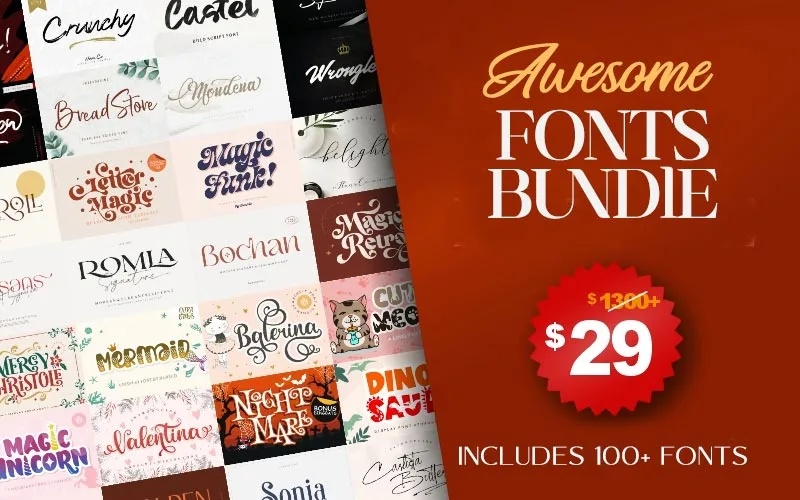
Make a striking first impression with the right type. The 100+ Awesome Fonts Bundle brings together playful, elegant, and classy typefaces—many with bonus ornaments and swashes—so you can create polished, memorable designs for any project.
What you get
• 100+ distinct fonts (full list below).
• Uppercase, lowercase and numerals included for every font.
• Bonus ornaments and swashes included on several fonts.
Fonts included in this bundle
• Letter Magic
• Bochan
• Magic Retro
• Berlin Collection
• Sonia
• Carlista Buttery
• Sunroll
• Magic Funk
• Notted
• Magic Sparkle
• Nesans
• Romla
• Golden Standbury
• Belgia
• Belights
• Amelia Ink
• Amorista
• Astopher
• Austin Capittal
• Balistone
• Ballomont
• Bastian Sidney
• Bellinda
• Blaster
• Bread Store
• Buchery
• Castel
• Crunchy
• Eastblue
• Glastia Monoline
• Gopetter
• Halima Sofira
• Holingston
• Hot Sauce
• Mondena
• Off Side
• Platinum Signature
• QueenSea
• Restoe Bumi
• Risolla Calisto
• Santoriu
• Rotenfold
• Stabillo
• Skid Rock
• The Englands
• The Spectre
• Wild Wolf
• Wrongler
• Tahu Bullats
• Abigile
• Angelove
• Asterik
• August
• Baby Bunny
• Baking Pastry
• Balerina
• Beyond Stars
• Botania
• Craft Lovers
• Cute Meow
• Dinosaur
• Dog Style
• Feeling Blessed
• Femina
• Hello Cinta
• Hi Christopher
• Hi Panda
• Holly Days
• Just Swirls
• Kayla Story
• Kora Kora
• La Fiesta
• Labajo
• Lets Espresso
• Little Baby
• Little Farmhouse
• Love Sparks
• Lover
• Magdelin
• Magic Love
• Magic Unicorn
• Mercy Christole
• Merica
• Merisa
• Meristmas
• Mermaid
• Misteri
• Paw Wow
• Night Mare
• Rose Spring
• Roseytha
• Santiago Elmoro
• Secillia
• Semperto
• Shinesy
• Snow Bold
• StripLine
• Sweet Butter
• Sweet Love
• Usa Nation
• Valentina
• Vatins Lubis
• Via Vallens
• Wellstone
• Winter
Highlights
• Every font includes numbers, uppercase and lowercase letters.
• Full multilingual support across the collection.